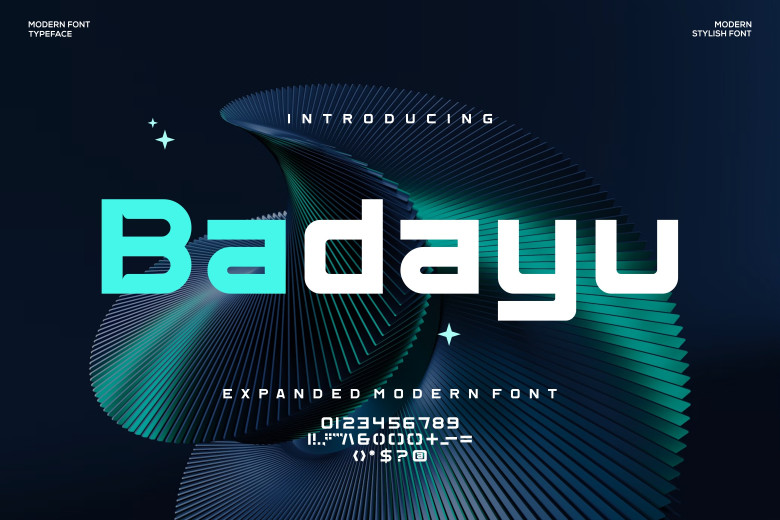
Badayu Font
Introducing a new product of ours: Badayu Font – Modern Font is a clean cut bold display font. It is suitable to use this font when creating logos, t-shirts, creative products, brand designs, and more. can refer to extraordinary in a number of circumstances.
Badayu Sans Serif Font